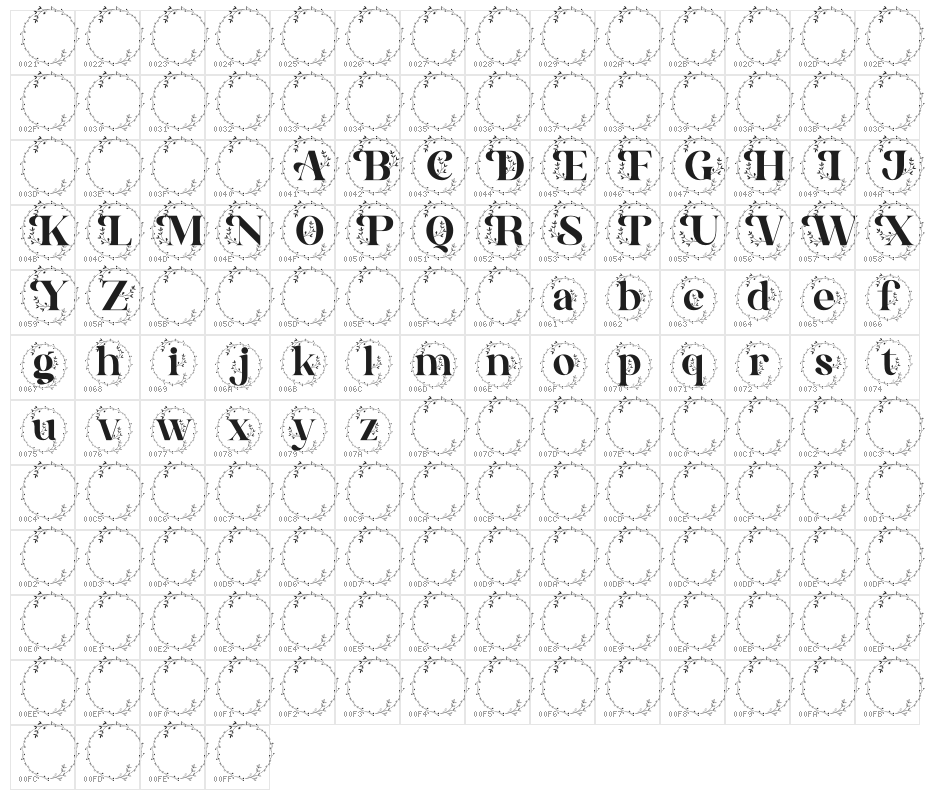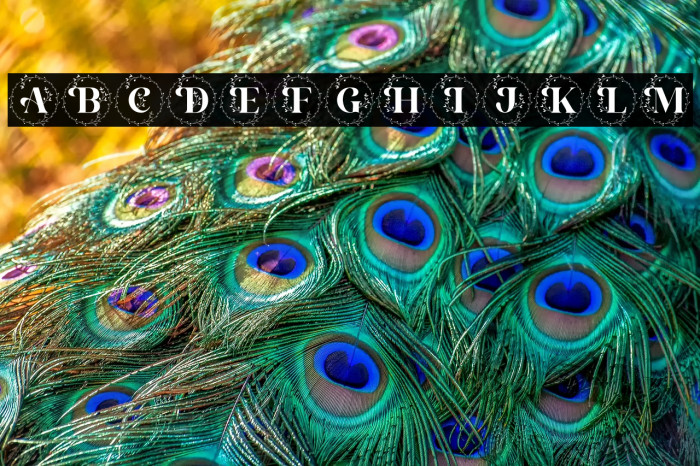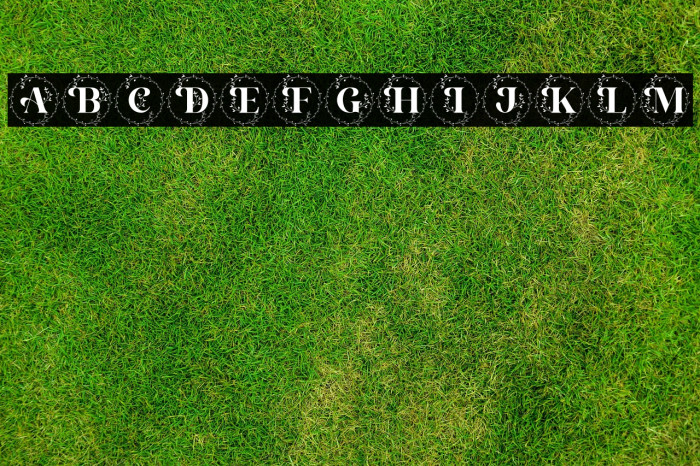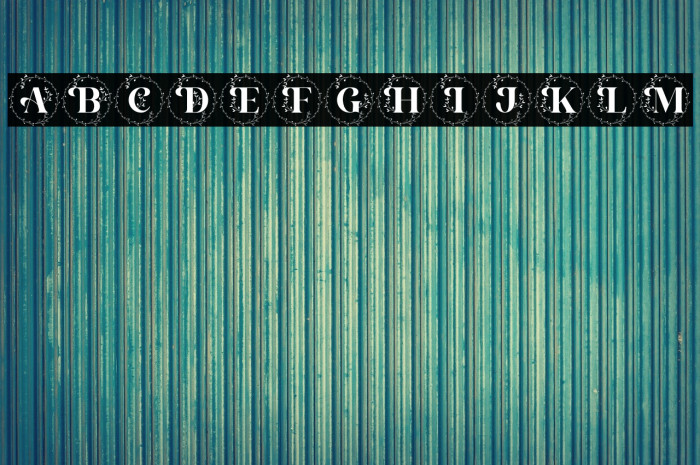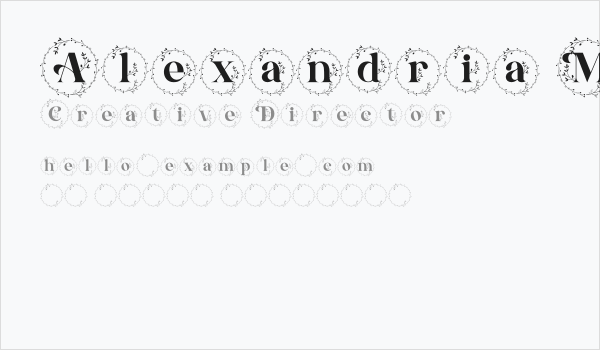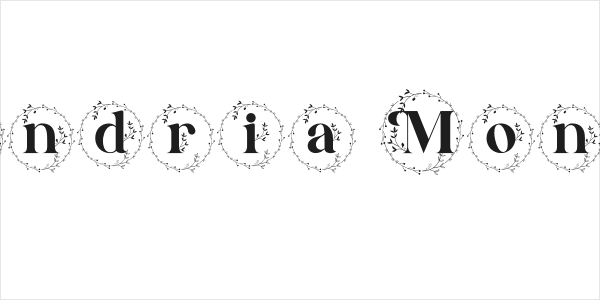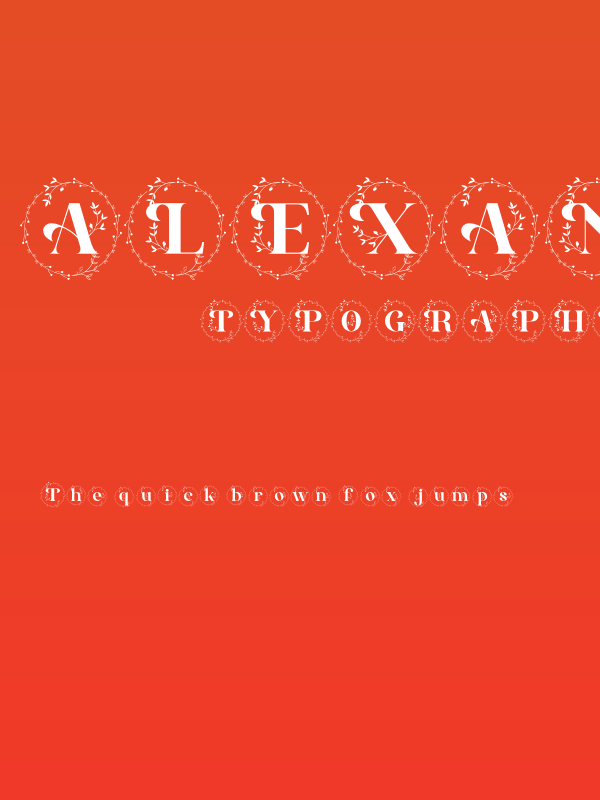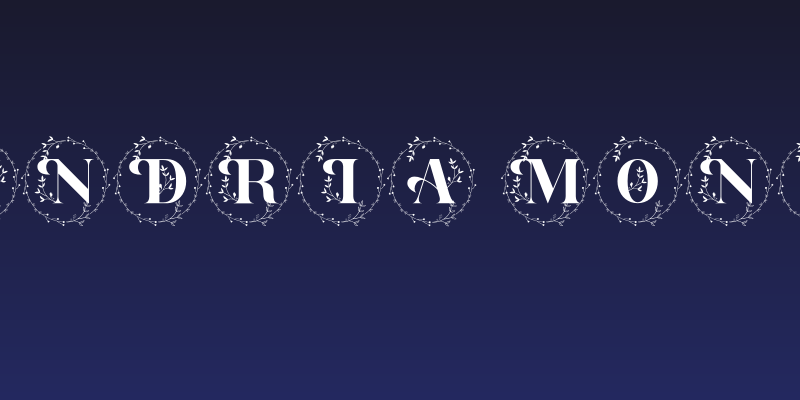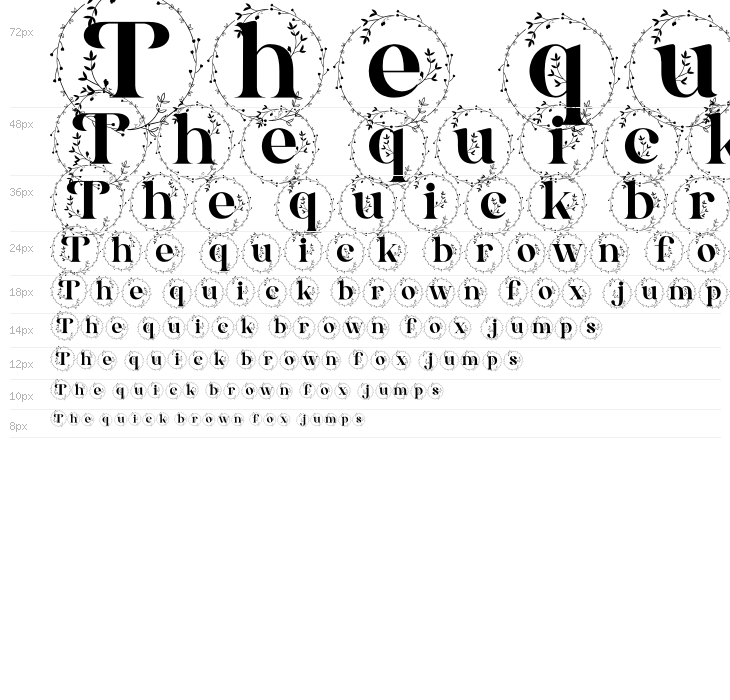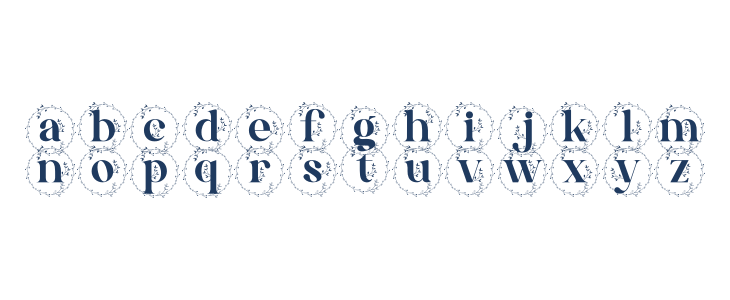
Alexandria Monogram Font
Alexandria Monogram Description
This font features a distinctive monogram style, where each letter is elegantly enclosed within a decorative circular frame. The characters themselves are bold and serifed, offering a classic and sophisticated appearance. The intricate border surrounding each letter adds a touch of elegance and refinement, making it ideal for formal and upscale designs. The uppercase and lowercase letters are consistent in style, ensuring a cohesive look across different text elements. The overall design is both timeless and versatile, suitable for a variety of applications where a touch of class is desired.
| Proposed Projects | Ideal for wedding invitations, luxury branding, personalized stationery, and elegant packaging designs. |